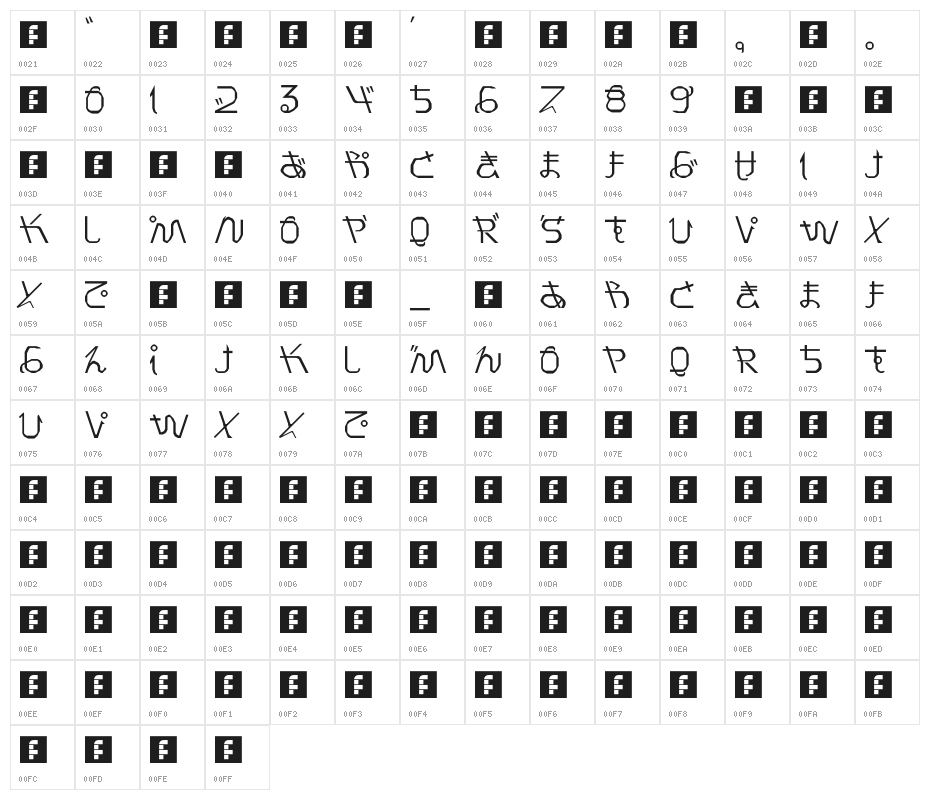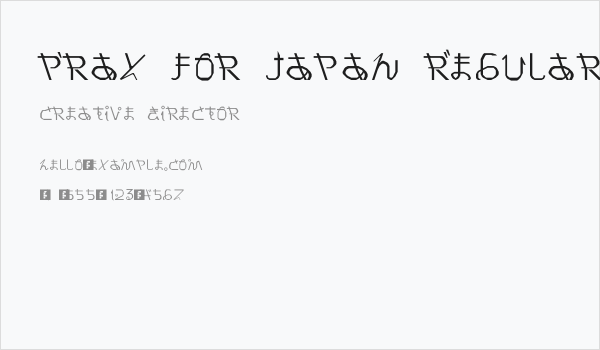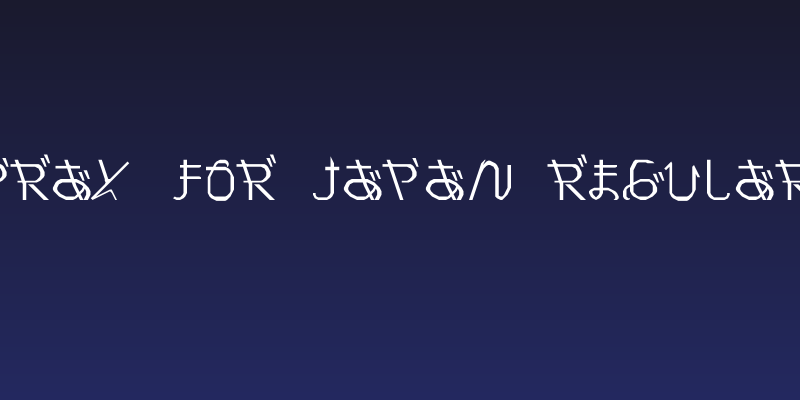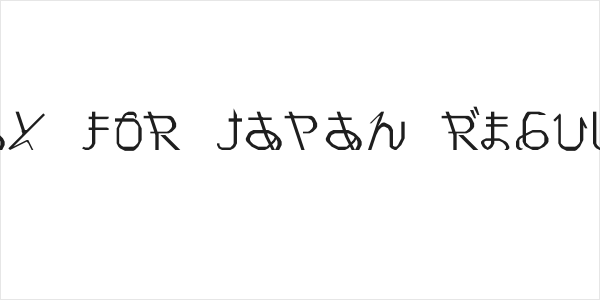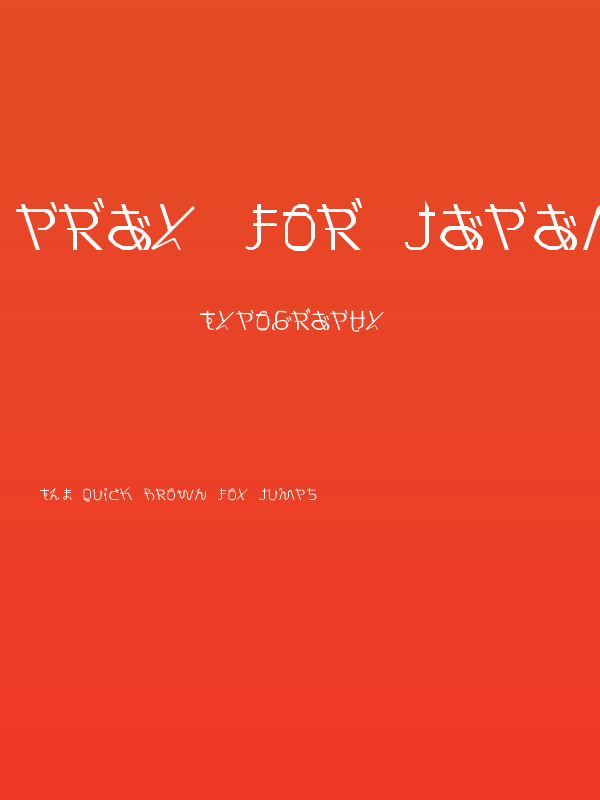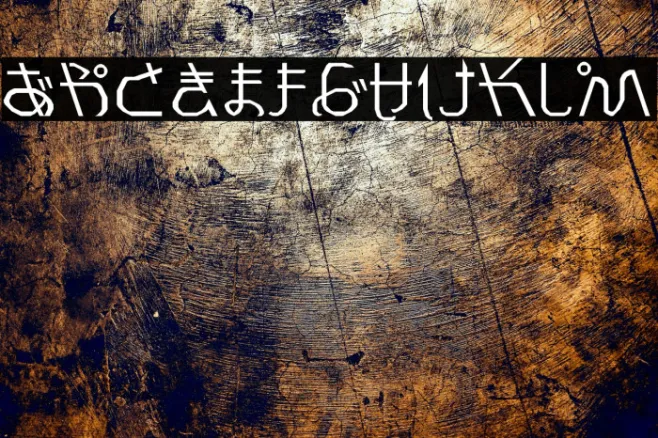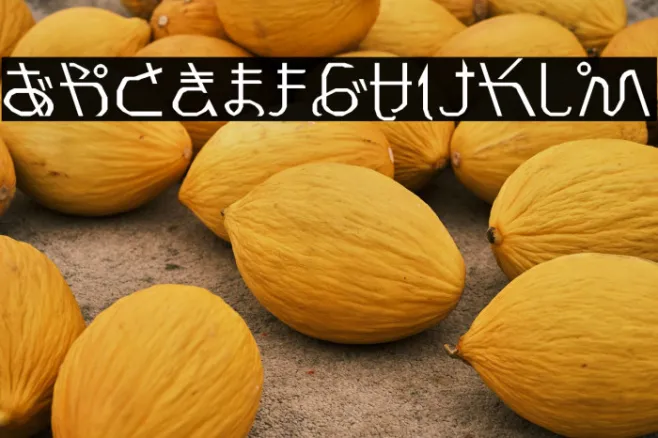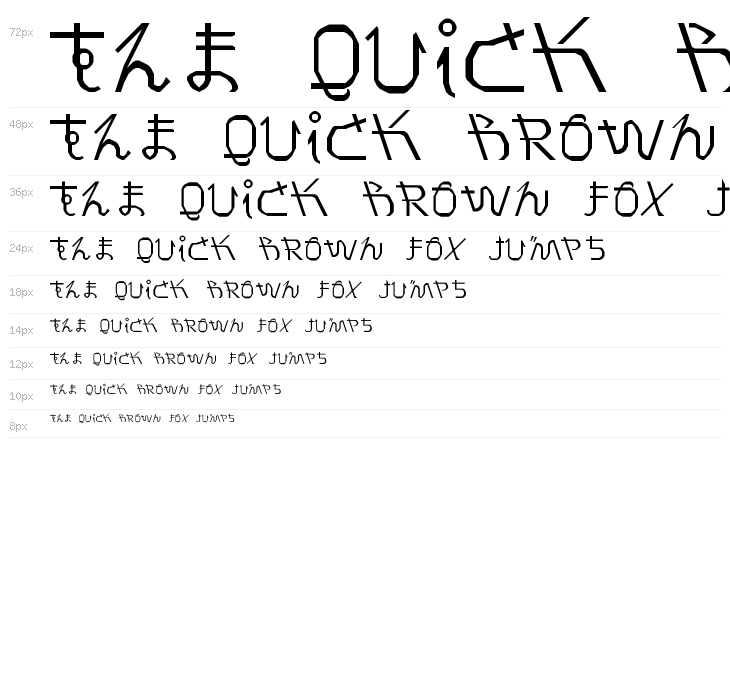
Pray for Japan Regular Font
Pray for Japan Regular Description
This font features a unique and creative design that blends elements of both traditional and modern styles. The characters are constructed with a geometric flair, incorporating angular lines and curves that give it a distinct appearance. The uppercase and lowercase letters maintain a consistent style, with a playful yet structured form. Numbers and special characters are designed to match the overall aesthetic, ensuring a cohesive look across all text. The font's design is reminiscent of digital or futuristic themes, making it suitable for projects that require a modern and innovative touch.
| Use Case | Logos, Headlines, Digital Art |
| Proposed Projects | Ideal for digital art, tech-related branding, modern posters, and innovative product packaging. |